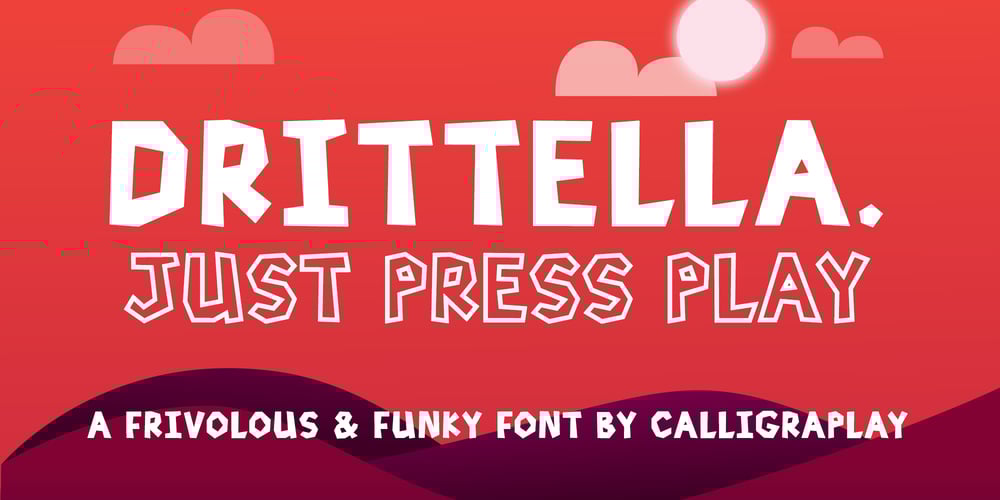
Drittella Font Family was designed by Sarah-Jane Loveday and published by Calligraplay. Drittella contains 2 styles and family package options. Drittella is a frivolous and funky all-caps font perfect for posters and display purposes. It is particularly well suited to video games, with straight lines and asymmetrical angles. Created with design direction from my young son, it is equally appropriate for children’s artwork, such as invitations, illustrations and cartoons.Drittella is available in both regular and outline styles, which can be used together to provide an option for emphasis. With a total of 345 glyphs, Drittella is multilingual, with numerous currency symbols, and a range of numerical symbols including subscripts, superscripts, fractions and arrows.